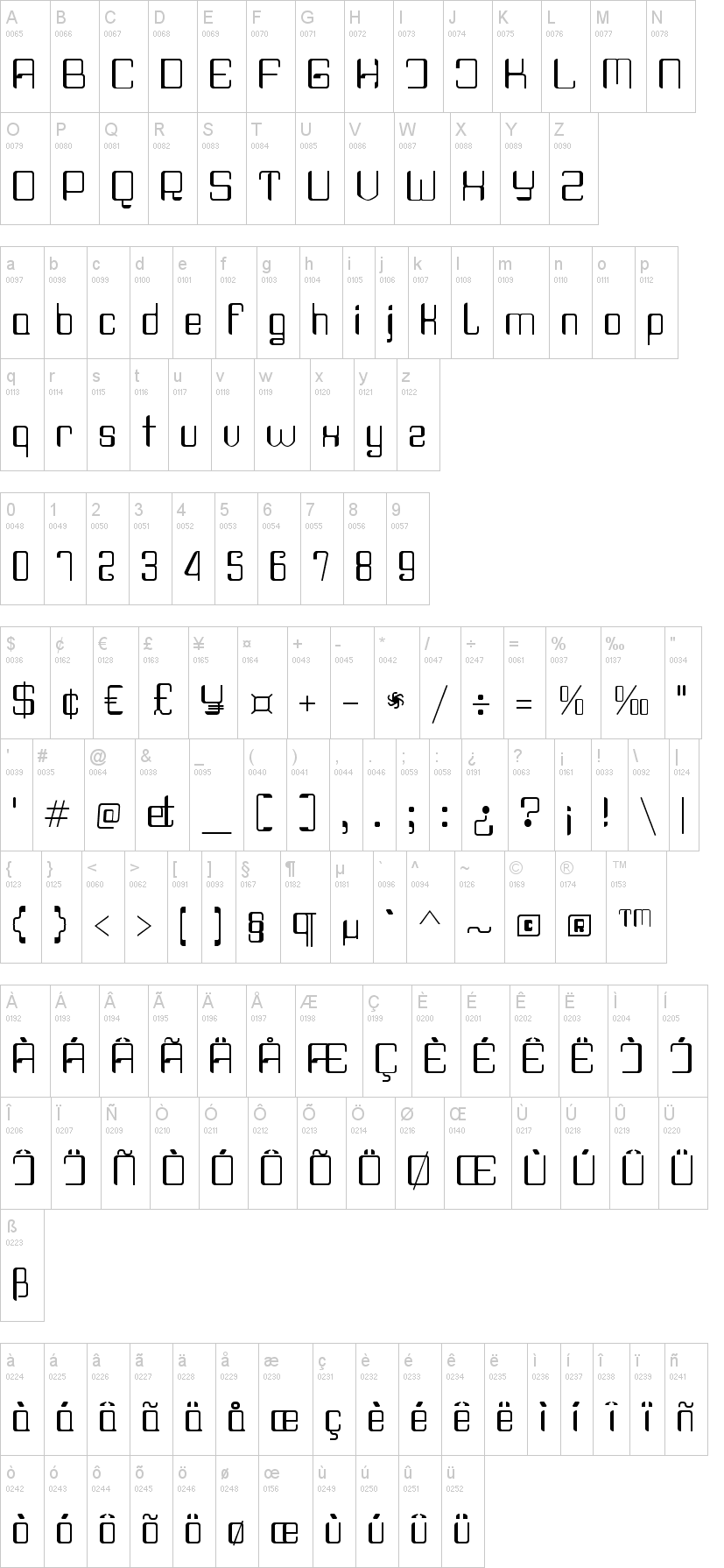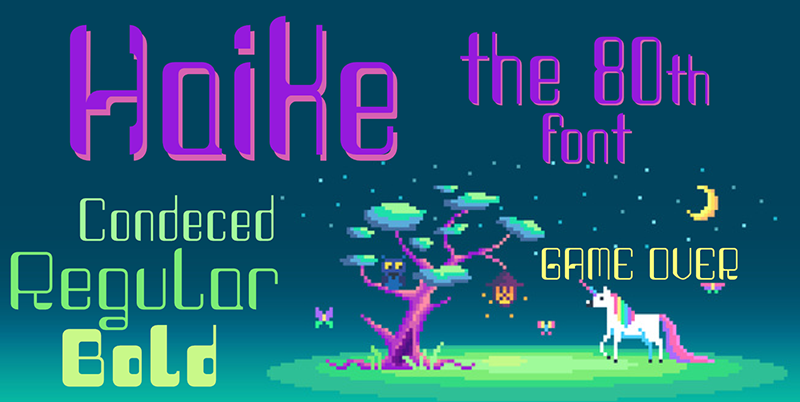
Haike-Thinit.ttfHaike-Regular.ttfHaike-RegItalic.ttfHaike-boldreg.ttfHaike-boldit.ttfHaike-col.ttfHaike-condensedreg.ttfHaike-condit.ttfNote of the authorHaike is an Retro 80s Computer Style Font